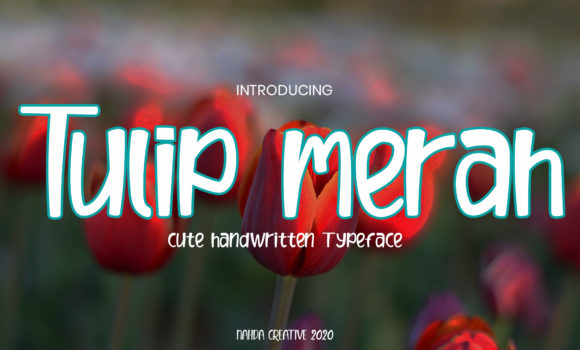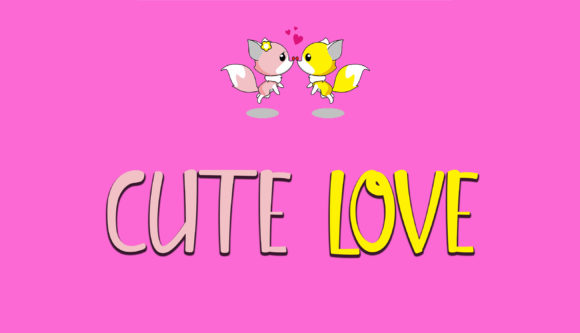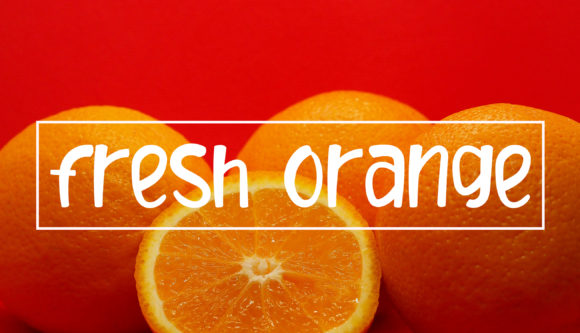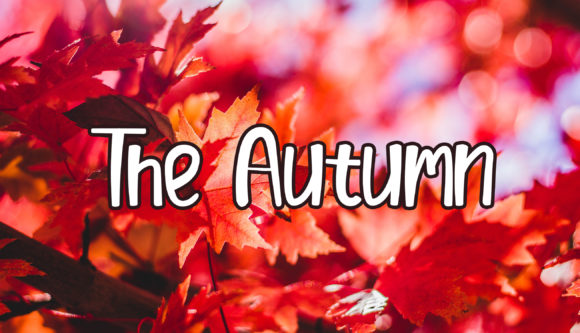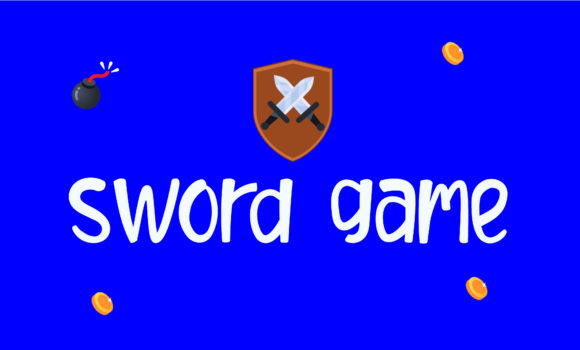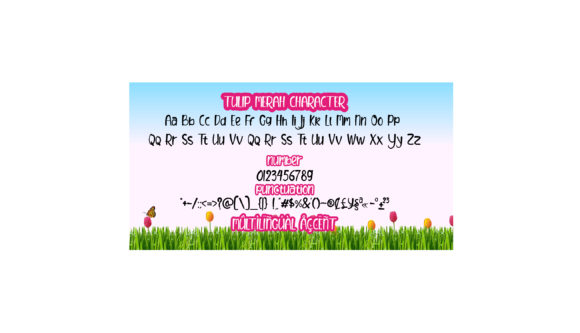
Tulip Merah Font
About Tulip Merah Font
Tulip Merah is a simple and natural handwritten font. It can be used for various purposes such as logos, wedding invitations, headings, t-shirts, letterhead, signage, labels, news, posters, badges and so much more. This font is also perfect for children themed designs, especially when combined with bright colors.